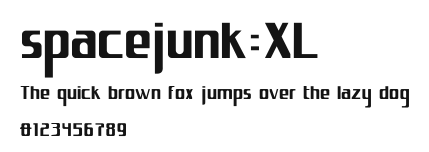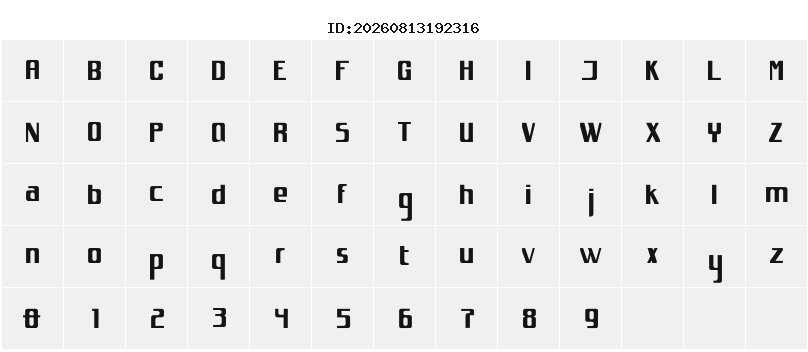
• Font Name: spacejunk:XL
• Full Font Name: spacejunk:XL
• PostScript Name: spacejunk:XL
• Character Count: 194
• Copyright: Keith S. Parent (c) 2001
• Designer: electriK MONk (a.k.a. Keith S. Parent)
About spacejunk:XL.ttf
spacejunk:XL.ttf is a modern, elegant sans-serif font designed for ultimate readability and visual harmony. Perfect for branding, headlines, web design, and print materials.